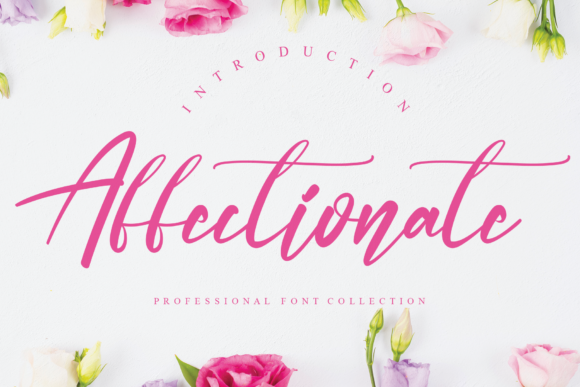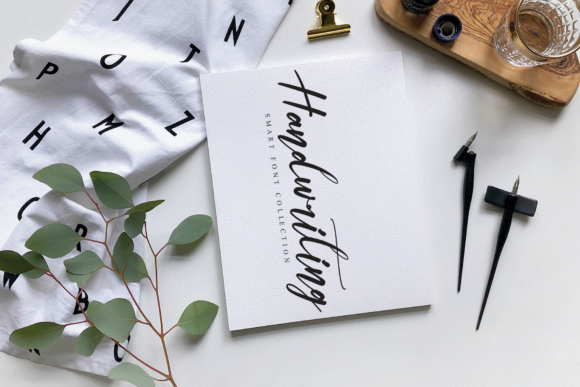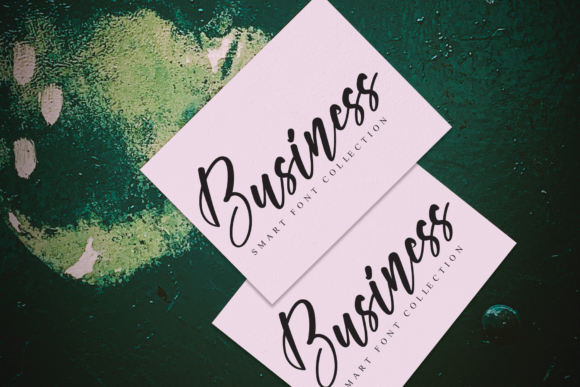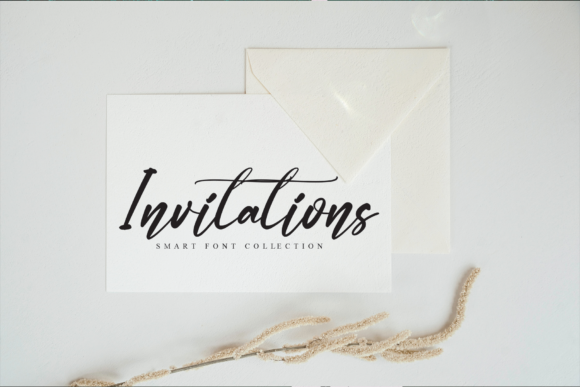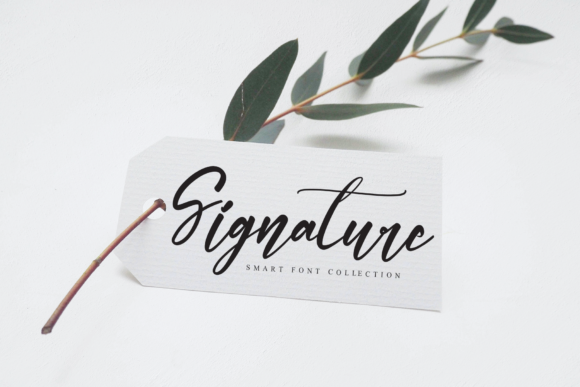
Affectionate Font
About Affectionate Font
Affectionate is a lovely and delicate script font that exudes elegance and class. This font was particularly crafted for those who need a beautiful and refreshing look to their designs.